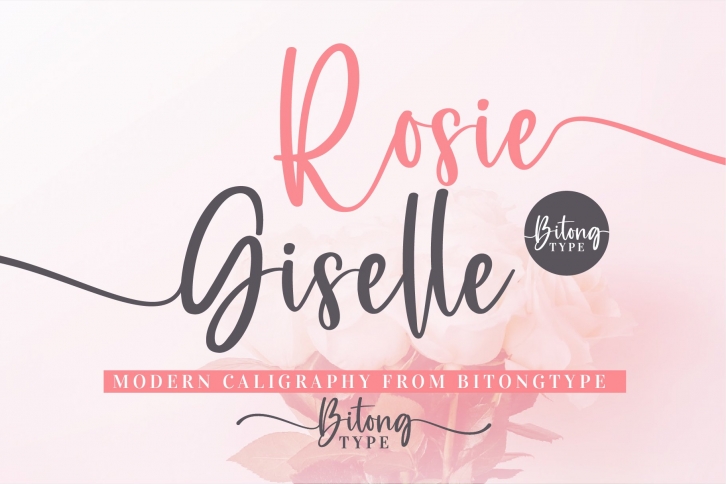
Rosie Giselle is a gorgeous font that was realeased on September 30, 2021. The font can be used in many style contexts and design environments. Perfect for invitations, magazines, websites, logos, and more! It was designed by RungNoiStudio and the file size is 3.58 MB. Thanks for checking out this font!